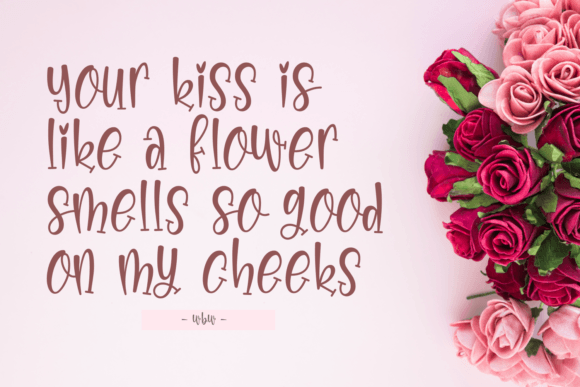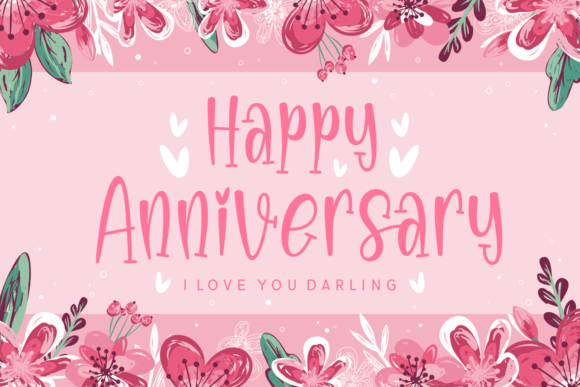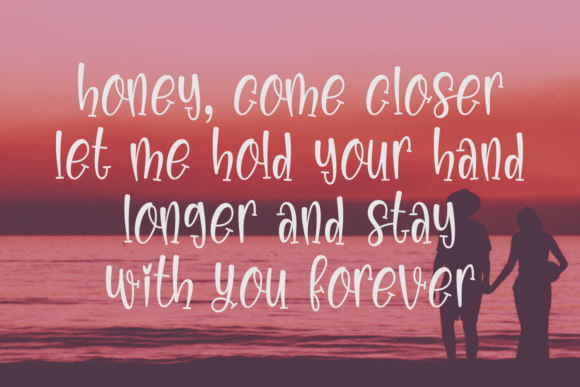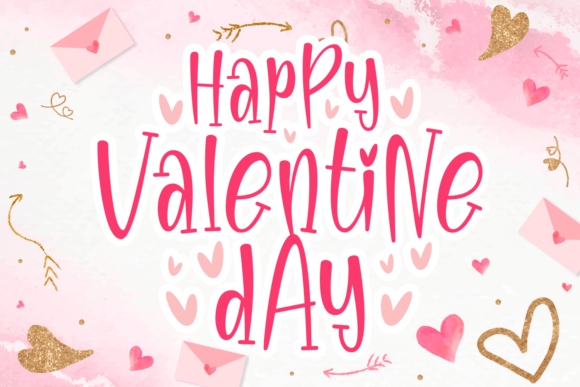
Introduction to Romantic Time Font
Have you ever stumbled upon the perfect font for your design project, and suddenly the whole world feels brighter? That’s exactly what happened to me when I discovered the enchanting Romantic Time Font. Its playful, adorable serifs brought a smile to my face, and I knew I had to share it with fellow designers.
As designers, we’re always on the lookout for that special something to elevate our creative projects. Whether it’s a wedding invitation, product packaging, or birthday card, the right font can make all the difference. And that’s where the Romantic Time Font comes in – a high-quality design resource that’s perfect for adding a touch of whimsy and romance to your work.
Key Features of Romantic Time Font
- High-quality design: Romantic Time Font is a beautifully crafted font that’s perfect for creative projects requiring a touch of elegance and sophistication.
- Transparent background: Romantic Time Font features a transparent background, allowing you to easily combine it with other design elements and create unique visuals.
- Size and resolution: Romantic Time Font is available in a range of sizes and resolutions, from 72 dpi to 300 dpi, making it suitable for various design applications.
- Unique characteristics: This font features intricate details and ornate designs, making it perfect for creating eye-catching titles, headings, and other design elements.
- Design versatility: Romantic Time Font is suitable for a wide range of creative projects, including wedding invitations, greeting cards, and other design applications where a touch of romance is required.
Honest Review: Romantic Time Font
I recently stumbled upon the Romantic Time Font, and I’m excited to share my honest thoughts on this design resource. As a designer, I’m always on the lookout for high-quality fonts that can elevate my creative projects.
First impressions are everything, and the Romantic Time Font does not disappoint. The font has a beautiful, elegant feel to it, making it perfect for projects that require a touch of sophistication.
- ✨ Beautiful, elegant design
- ✨ High-quality glyphs
- ✨ Transparent background, making it easy to use on any design surface
- ⚠️ Limited character set, which may be a concern for designers who need a wide range of characters
- ⚠️ Not ideal for projects that require a bold, attention-grabbing font
Overall, I’m impressed with the Romantic Time Font. It’s a great addition to any designer’s toolkit, and I would definitely recommend it for projects that require a touch of elegance and sophistication. Just be aware of its limitations, and you’ll be golden.
How to Use Romantic Time Font
For optimal results, use the Romantic Time Font in combination with other design elements to create a cohesive and visually appealing design. Experiment with different font sizes, colors, and arrangements to achieve the desired effect.
The Romantic Time Font is ideal for creative projects that require a touch of elegance and sophistication, such as:
- Photography captions and quotes
- Blog and social media graphics
Alternatives to Romantic Time Font
The Great Vibes Font is a high-quality, elegant script font perfect for creative projects that require a touch of romance and sophistication. It’s ideal for wedding invitations, greeting cards, and other design elements that need a whimsical feel. When to use: weddings, baby showers, and other special occasions. Comparison: Great Vibes Font has a more delicate and intricate design compared to Romantic Time Font, making it a better choice for subtle, elegant designs.
The Alex Brush Font is a beautiful, handwritten font that’s perfect for designers looking for a high-quality, free download font. It’s ideal for creative projects that require a personal and artistic touch. When to use: greeting cards, posters, and other design elements that need a personal and emotive feel. Comparison: Alex Brush Font has a more fluid and expressive design compared to Romantic Time Font, making it a better choice for projects that require a sense of movement and energy.